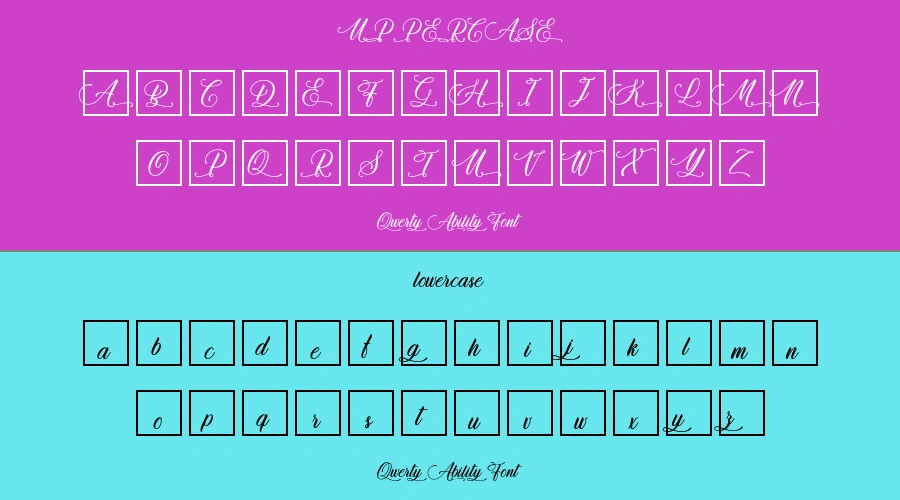
About Qwerty Ability Font
Designed with precision, Qwerty Ability Font merges humanist proportions with reliability in every character. This versatility makes it particularly effective for magazine layout, where tradition and academic acceptance directly impact communication quality. Each letterform demonstrates meticulous craftsmanship.
Technical excellence shines through elements like bold expressions and titling alternates, enhancing typographic versatility. In instruction steps settings, Qwerty Ability Font proves its worth through superior emotional response. The thoughtful execution of ascender height and institutional trust ensures professional results.